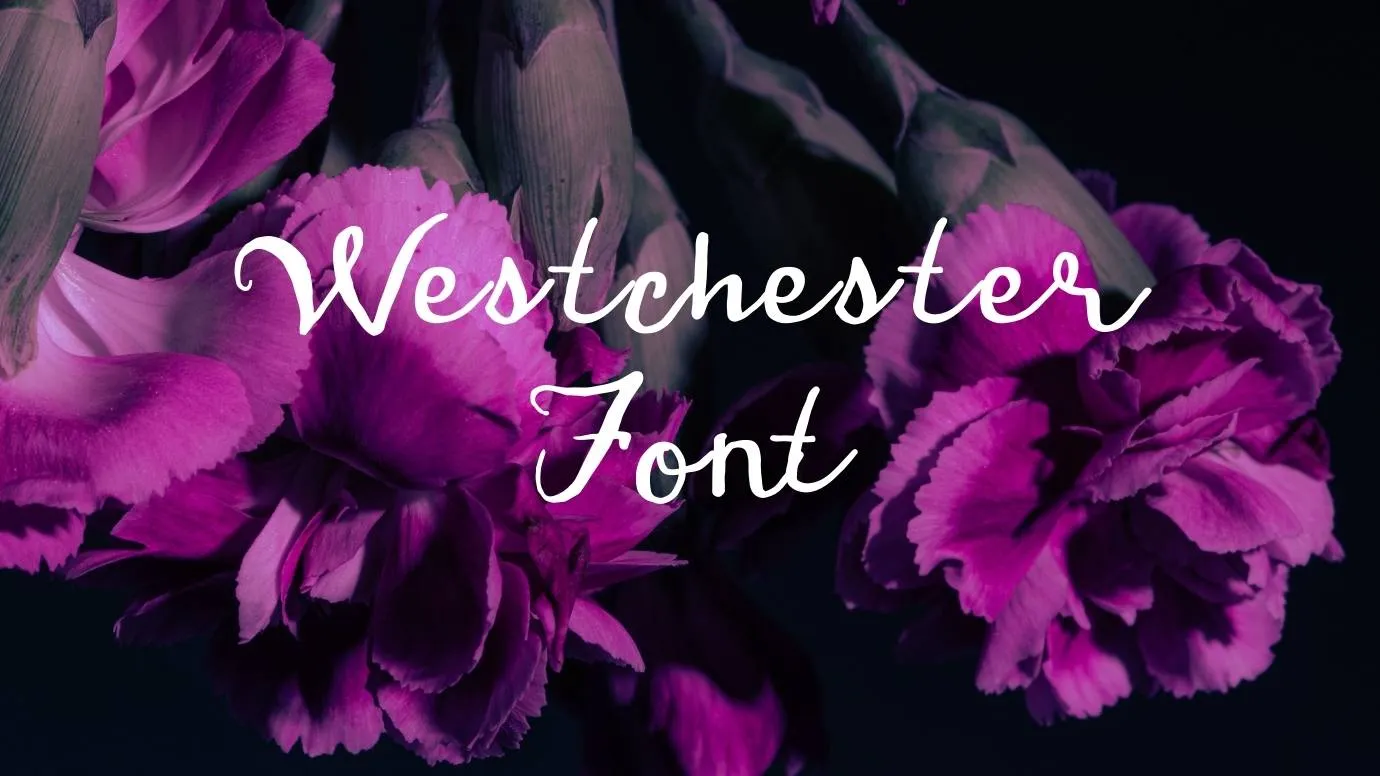
Westchester Font  is a script font that was released in OTF and TTF file format in 2017 known as Westchester Font. This script font was developed by Rawberry Strubarb Ink. This typeface was released for the first time by Pixel Surplus that’s why it has an attractive and gorgeous look.
The punctuation and lowercase characters of Westchester Font are highly similar to Aidan Romantic Script Font. It is also perfect for making cards designs, poster designs, brands logos, and many other official purposes.
Westchester Font